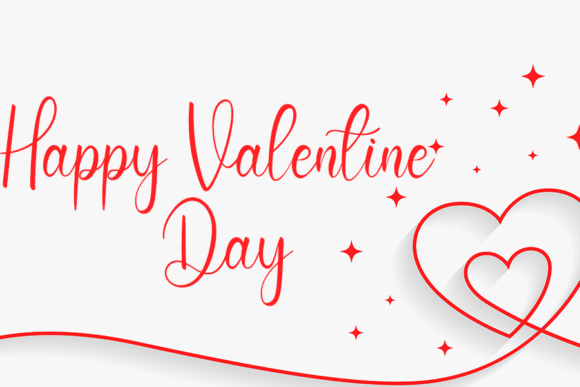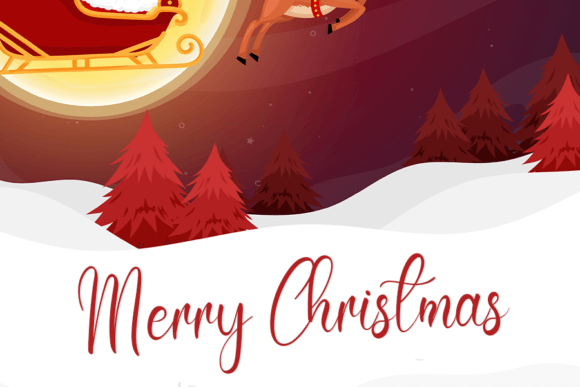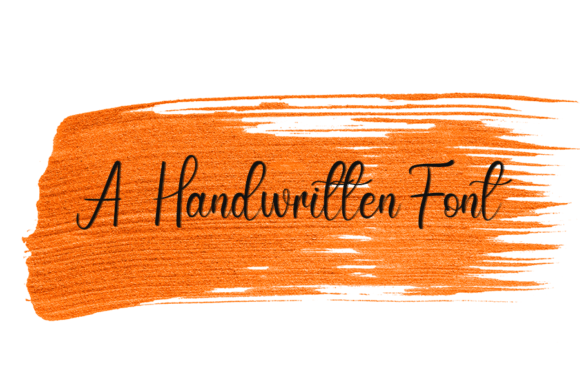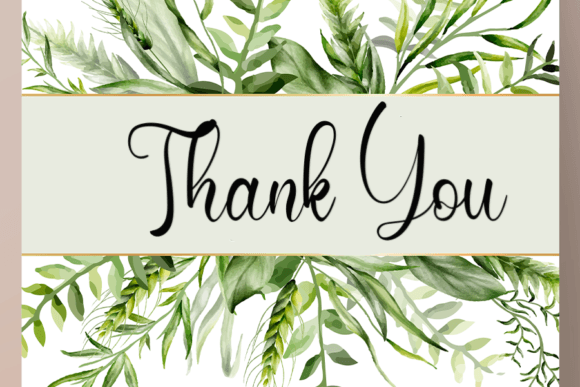
Summer Signature Font
About Summer Signature Font
Summer Signature font is a cool, simple, and playful handwritten font designed to add a fresh and lively touch to your creative projects. When you download Summer Signature font, you get a versatile typeface that fits a wide range of design needs. This font effortlessly elevates your work, making each project feel more dynamic and engaging.
A Playful Handwritten Font for Various Designs
The charm of Summer Signaturefont lies in its playful, handwritten style that is both modern and approachable. Its simplicity ensures that it can complement many different design aesthetics. Whether you’re working on logos, branding, or social media content, this font will enhance your visual identity with a casual yet stylish flair.
Versatility That Fits Many Creative Ideas
Summer Signaturefont adapts seamlessly to numerous projects. It’s perfect for crafting unique invitations, eye-catching posters, trendy merchandise designs, and personalized digital content. Download Summer Signaturefont to bring your creative ideas to life with an elegant, handwritten look.
Why Download Summer Signature Font?
Downloading Summer Signaturefont means adding a highly flexible and attractive handwritten font to your collection. Its playful curves and balanced structure make it ideal for designers seeking a font that stands out while maintaining readability. Use this font to make your projects more memorable and visually appealing.